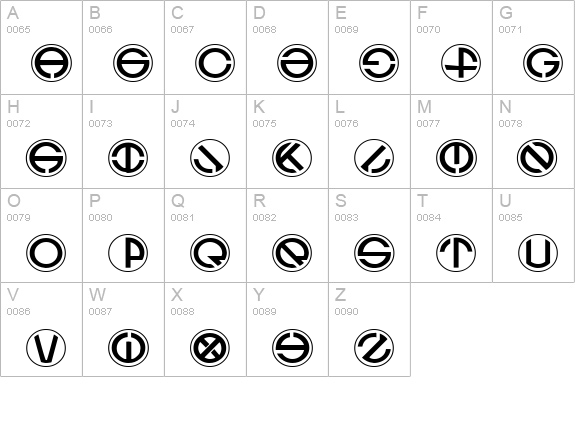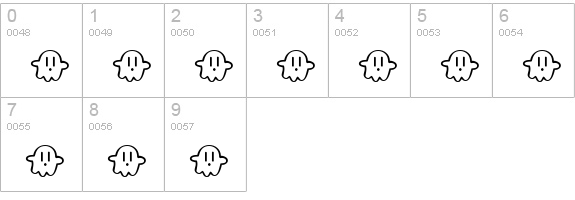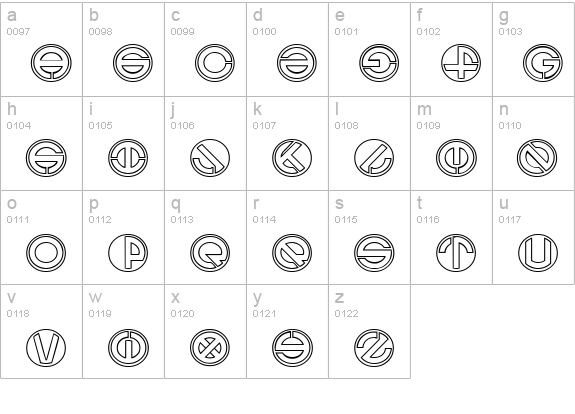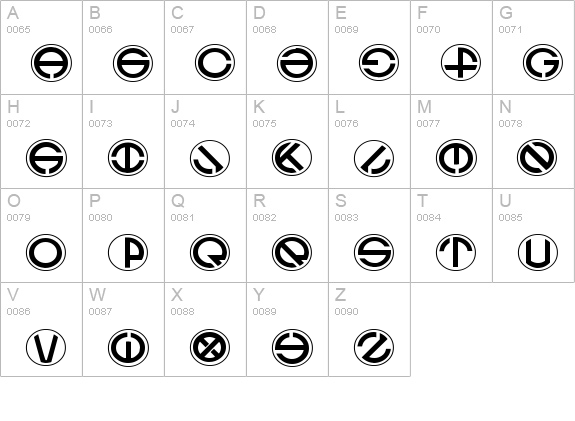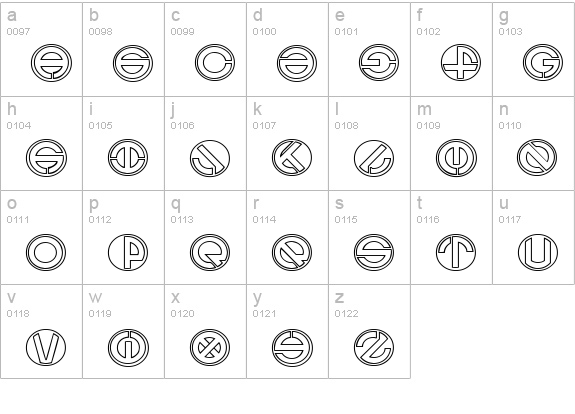
Ghost Font Details
Introducing Ghost font - a hauntingly beautiful typeface that will add an air of mystery and intrigue to your designs. This ethereal font features delicate, ghostly letterforms that seem to float off the page. Perfect for creating a spooky atmosphere for Halloween designs, ghost stories, or anything that needs a touch of the supernatural. And the best part? Ghost font is available for free download at FontsMarket.com! So you can easily add this unique and eye-catching font to your collection without breaking the bank. Don't miss out on the opportunity to elevate your designs with the otherworldly charm of Ghost font. Download it now and let your creativity soar!